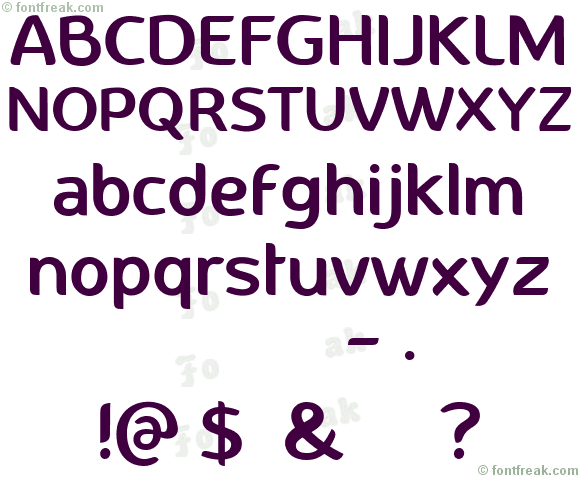
Constance
About Constance
Constance, designed by Benoit Sjoholm in 2012, is a modern sans-serif font that captures attention with its clean lines and contemporary aesthetic. This font features a balanced stroke weight, offering an even visual flow that enhances readability across various mediums. The subtle contrast between thick and thin strokes lends a sophisticated touch, making it suitable for both digital and print applications. The generous spacing between characters allows for clarity, ensuring that text remains legible even at smaller sizes.
Ideal for a range of uses, Constance shines in contexts such as wedding invitations, where its elegant simplicity can convey heartfelt sentiments. It works beautifully for restaurant menus, allowing dishes to stand out while maintaining an inviting atmosphere. Additionally, this font is perfect for movie posters, adding a touch of modern flair that can capture the essence of the film. Graphic designers will find it equally useful for branding projects, where a contemporary font can help establish a strong visual identity. Small business owners and content creators will appreciate its versatility, as it can elevate marketing materials and social media graphics.
The target audience for Constance includes graphic designers, small business owners, and content creators who seek a stylish yet approachable font for their projects. The free availability of the Constance font makes it an attractive option for those on a budget, offering professional quality without the cost.
What truly sets Constance apart is its ability to blend modernity with elegance, making it a versatile choice for various design needs. Its clean lines combined with a sophisticated feel ensure that it can elevate any project, making it a must-have in any designer's toolkit. The Constance font free download is an excellent opportunity for creatives to incorporate this unique typeface into their work.